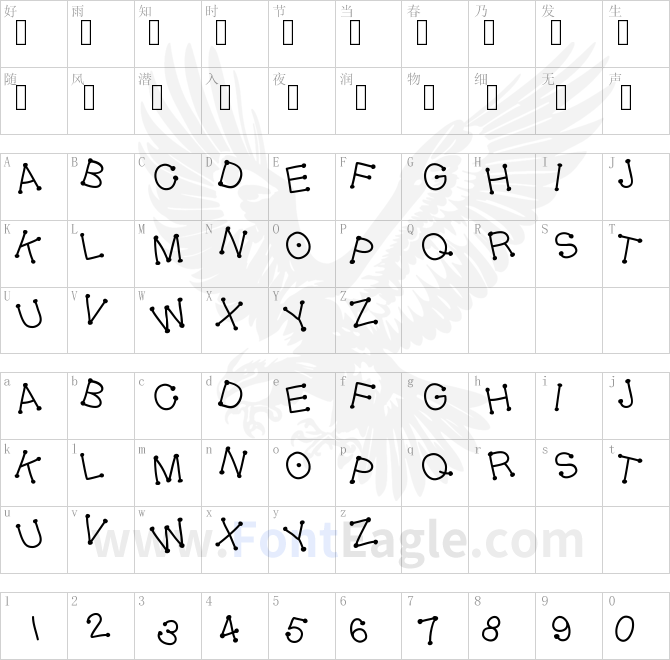
- Font name:GelDoticaJumpy
GelDoticaJumpy is a great font, widely used in graphic design, single-page menu design, poster design and other fields, and is deeply loved by designers.GelDoticaJumpy download.